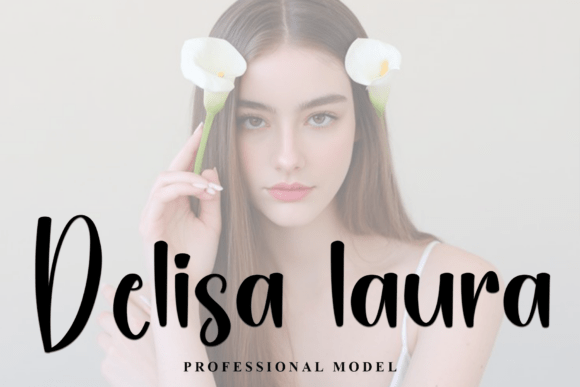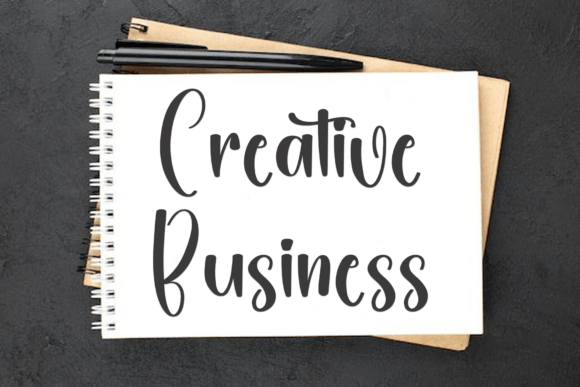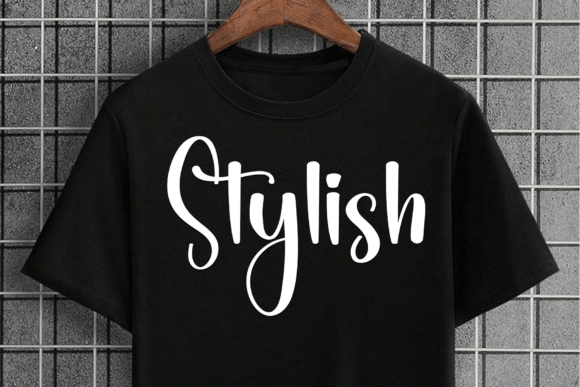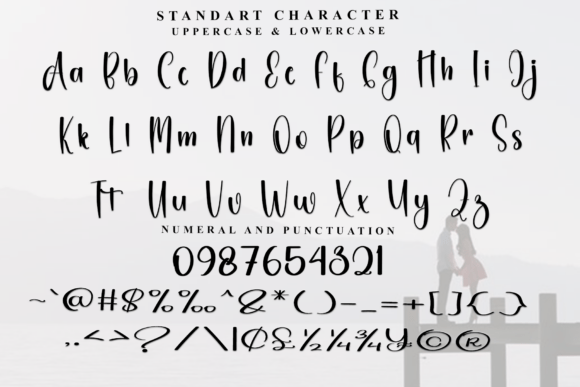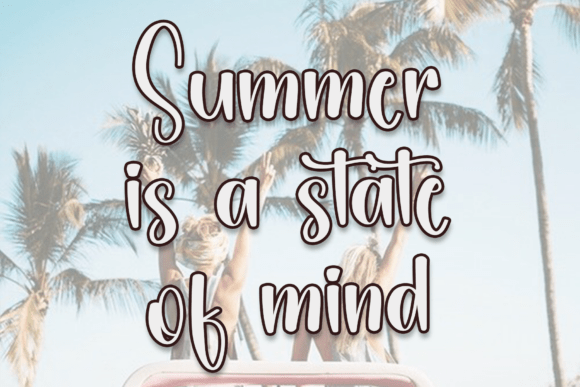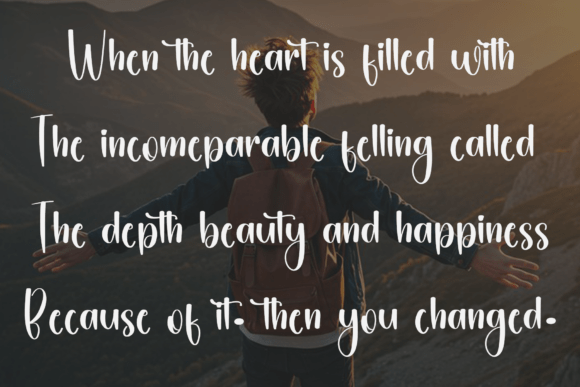
Baby Angela Font: The Perfect Choice for Designers and Crafters
In the world of typography, fonts play a crucial role in making designs stand out. One such font that has gained popularity among designers and crafters is the Baby Angela Font. This beautiful and eye-catching font is designed with a soft, unique touch that sets it apart from other fonts. In this article, we’ll explore the features and benefits of Baby Angela Font, making it a must-have for your design projects.
Unique and Distinctive Strokes
Baby Angela Font boasts distinctive strokes that give it a special character. The font’s unique design makes it meaningful and versatile for future use. Its soft and delicate appearance makes it perfect for designs that require a touch of elegance and sophistication. Whether you’re working on a logo, brochure, or social media graphics, Baby Angela Font is sure to make your designs stand out.
Variety of Characters
One of the standout features of Baby Angela Font is its variety of characters. The font comes with a range of characters, making it perfect for design projects, crafts, and other creative works. With Baby Angela Font, you can create unique and engaging designs that cater to different tastes and preferences.
Compatibility with Various Applications
Ideal for a Wide Range of Products
The natural font style of Baby Angela Font makes it ideal for a wide range of products. From stationery and greeting cards to logos and branding materials, this font is perfect for any design project that requires a touch of elegance and sophistication. Whether you’re a designer, crafter, or DIY enthusiast, Baby Angela Font is a great addition to your font library.
Enhance Your Designs
Baby Angela Font is designed to enhance your designs, making them appealing to many audiences across different artistic and creative fields. The font’s unique and distinctive strokes add a touch of personality to your designs, setting them apart from others. With Baby Angela Font, you can create designs that are not only visually appealing but also engaging and memorable.
Baby Angela Font is a perfect choice for designers and crafters who want to add a touch of elegance and sophistication to their designs. The font’s versatility and compatibility with various applications make it a great asset for any design project. Whether you’re working on a personal project or a client’s design brief, Baby Angela Font is sure to impress.